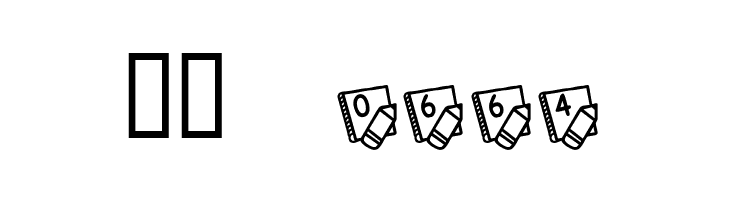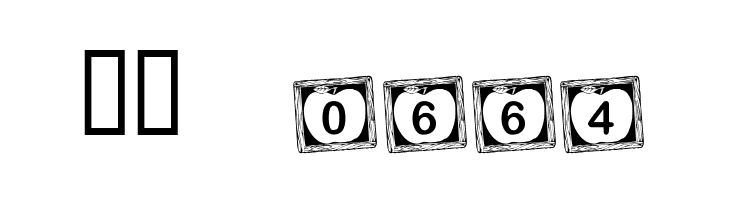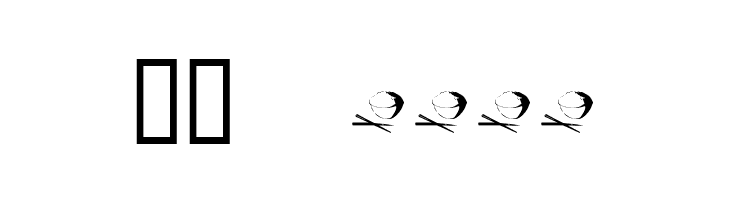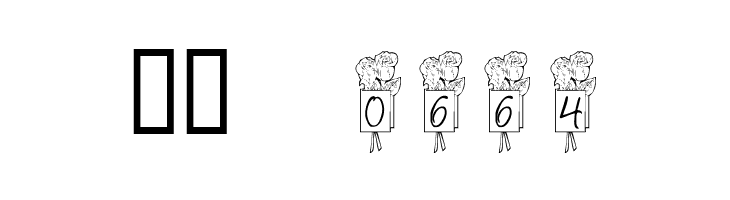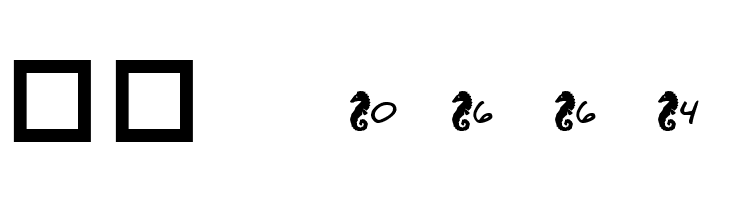
A bold, decorative font with quilt-like patterns and serif elements.
A playful, chalkboard-style font with decorative square borders around each character.
A playful, decorative font with characters enclosed in textured squares, ideal for creative projects.
Elephant-themed decorative dingbat font with assorted illustrations.
A bold, playful font with characters enclosed in keycap-like shapes, offering a nostalgic yet modern appeal.
A decorative font with uppercase letters in nail polish bottle shapes.
A decorative font with star-like embellishments and bold characters.
A bold serif font with twinkling star embellishments, perfect for decorative use.
A decorative font featuring detailed hummingbird illustrations.
A decorative set of hummingbird illustrations for creative projects.
A decorative script font with scalloped frames around each character.
A playful, decorative font with rice bowl and chopstick motifs.
A decorative serif font with floral-bordered characters, ideal for elegant designs.
A decorative serif font with letters encased in floral-patterned circles.
An artistic font with floral motifs and elegant script characters.
A bold, sans-serif font with each character encased in a decorative, jagged circular border.
A decorative font with bold letters encased in intricate circular frames.
A playful font with letters inside Santa's bags, perfect for festive designs.
A festive font with letters inside Santa's bags, perfect for holiday designs.
A playful, cat-themed decorative font with paw print embellishments.
A playful, school-themed decorative font with characters enclosed in a notebook and pencil design.
A playful font with characters enclosed in a notebook design, ideal for educational themes.
A whimsical font with teddy bear illustrations replacing letters.
A playful and whimsical font with quirky, decorative letterforms.
A whimsical and decorative font with playful curls and swirls, perfect for children's themes.
A decorative font with whimsical bear illustrations for each character.
A decorative font with whimsical square illustrations, perfect for playful designs.
A decorative font with playful, hand-drawn illustrations within each character.
A decorative font with seahorse motifs integrated into each character.
A playful font with letters enclosed in seed packet designs.
A playful, decorative font with characters inside stylized seed packets.